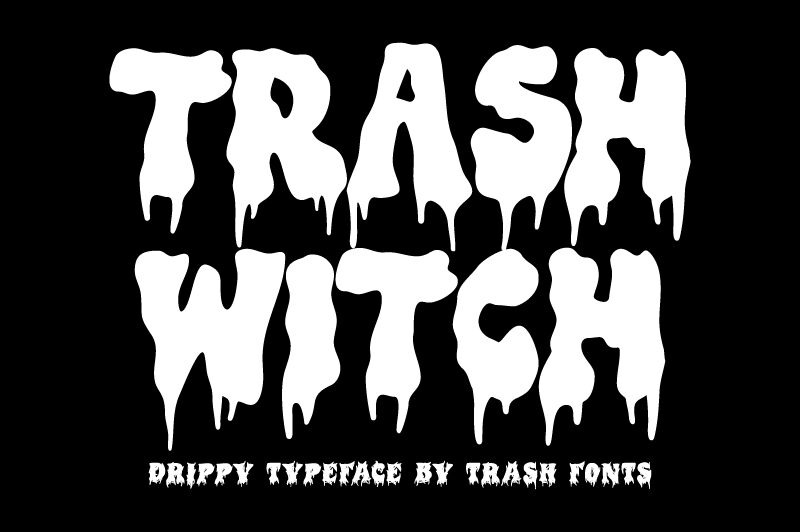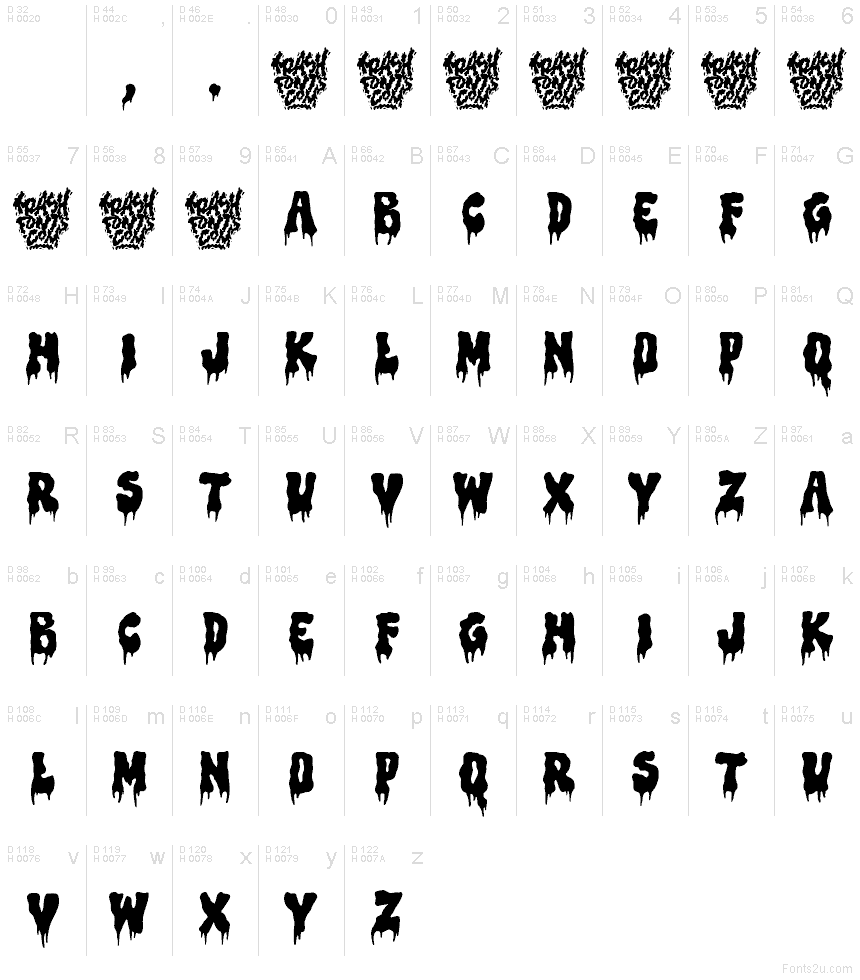
Trash Witch DEMO
Trash Witch font is a free Halloween fonts with bold letters, from Trash Fonts. The auto-width typeface displays disorienting shapes, uneven proportions, and bulky stems which give the overall look an expressive style. Its dripping effect as well as its grunge touches impart it a unique mysterious and dark aesthetic influenced by horror movies.
This font is suitable for backgrounds or titles of film posters, book covers, album covers, and social media content too. Other options include menus of themed cafés or restaurants.